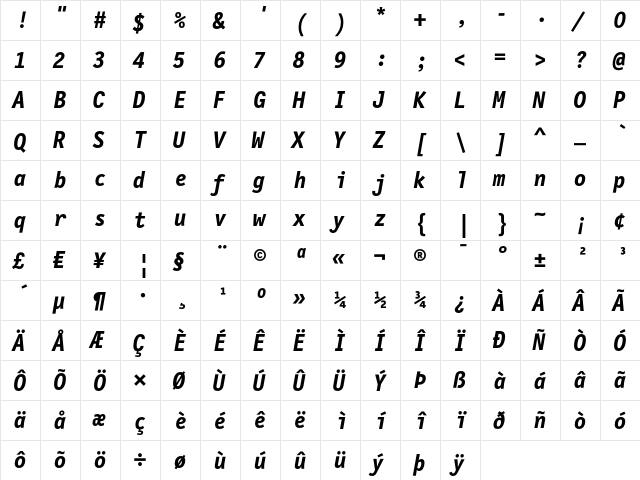
LetterGothicMono BoldItalic Font Preview
Design Context for LetterGothicMono Typeface
LetterGothicMono brings the precise, column-aligned rhythm of monospaced typography to designs that value technical clarity and systematic order. The dynamic lean of this cut emphasises speed and emphasis in any layout. The heavy weight commands attention and anchors typographic hierarchies.